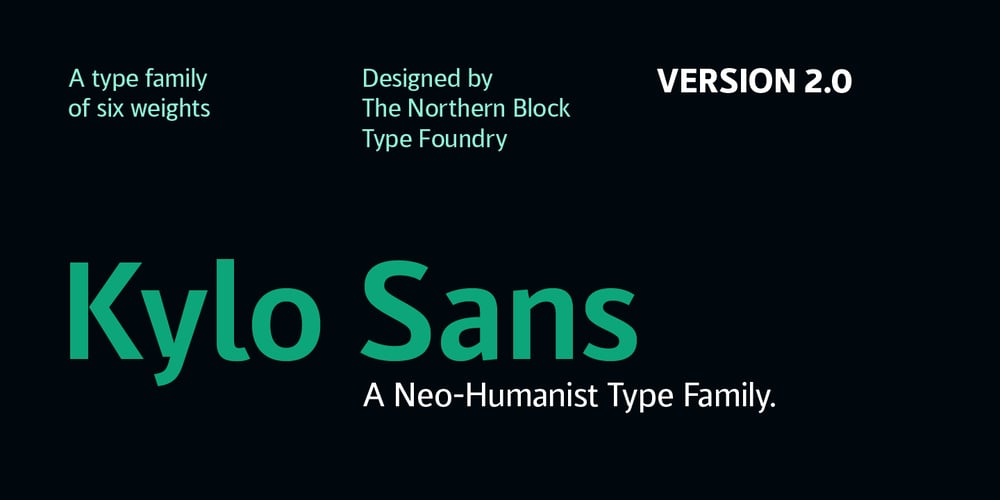
Kylo Sans Font Family was designed by Jonathan Hill and published by The Northern Block. Kylo Sans contains 12 styles and family package options. Kylo Sans is a carefully blended typeface, one-part humanist, one-part grotesque and a small dose of geometric. It takes the essence of three distinct forms to create a unique, readable typeface with an exact and understated personality. Additionally, the design process includes a hand-eye adjustment to three master weights, giving a greater range of usability across text layouts. Kylo Sans remastered to version 2.0 for improved OpenType features and usability. Details include six weights and italics, over 700 characters with alternative lowercase Q, a, g, l and y. OpenType features include six variations of numerals, small caps, ligatures, and language support covering Western, Southern and Central Europe.